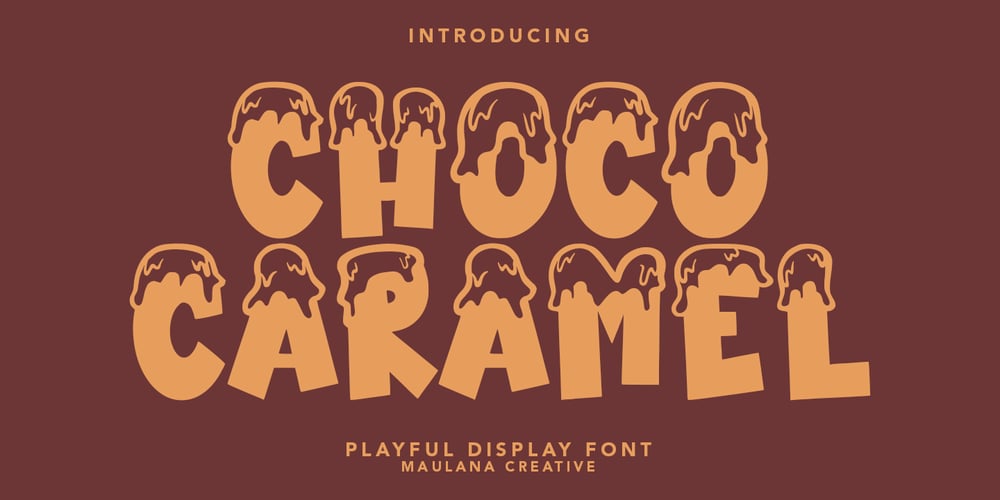
MC Choco Caramel Font Family was designed by Gilang Maulana and published by Maulana Creative. MC Choco Caramel contains 1 styles and family package options. Choco Caramel playful display font. Bold stroke, fun character with a bit of ligatures and alternates. To give you an extra creative work. Choco Caramel playful display font support multilingual more than 100+ language. This font is good for logo design, Social media, Movie Titles, Books Titles, a short text even a long text letter and good for your secondary text font with script or serif. Make a stunning work with Choco Caramel playful display font.Cheers,Maulana Creative